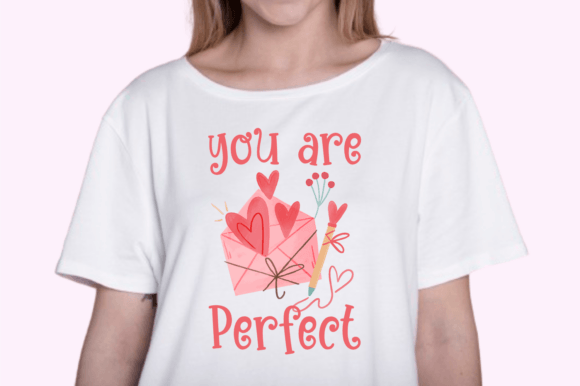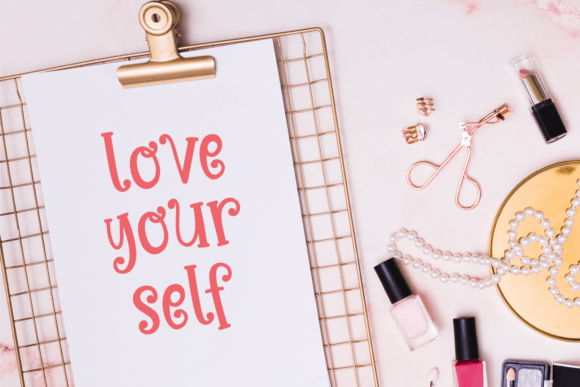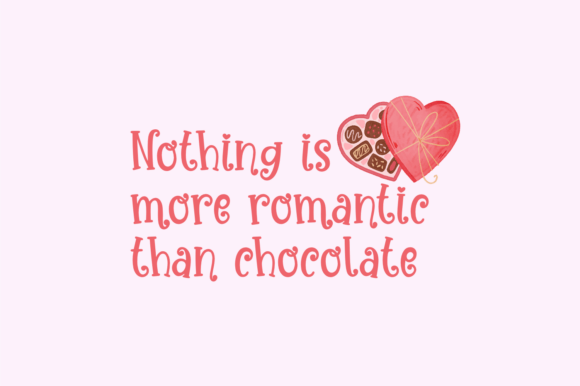
Retro Cupid Font: Free Download Now
Introduction to Retro Cupid Font
Dive into the vibrant charm of Retro Cupid.
This jovial serif font is an ode to love and merriment, perfect for producing an atmosphere steeped in enjoyment Featuring a delightful Valentine theme, Retro Cupid flawlessly captures the essence of those moments we hold most dear.
Key Features of Retro Cupid Font
Why Choose Retro Cupid Font?